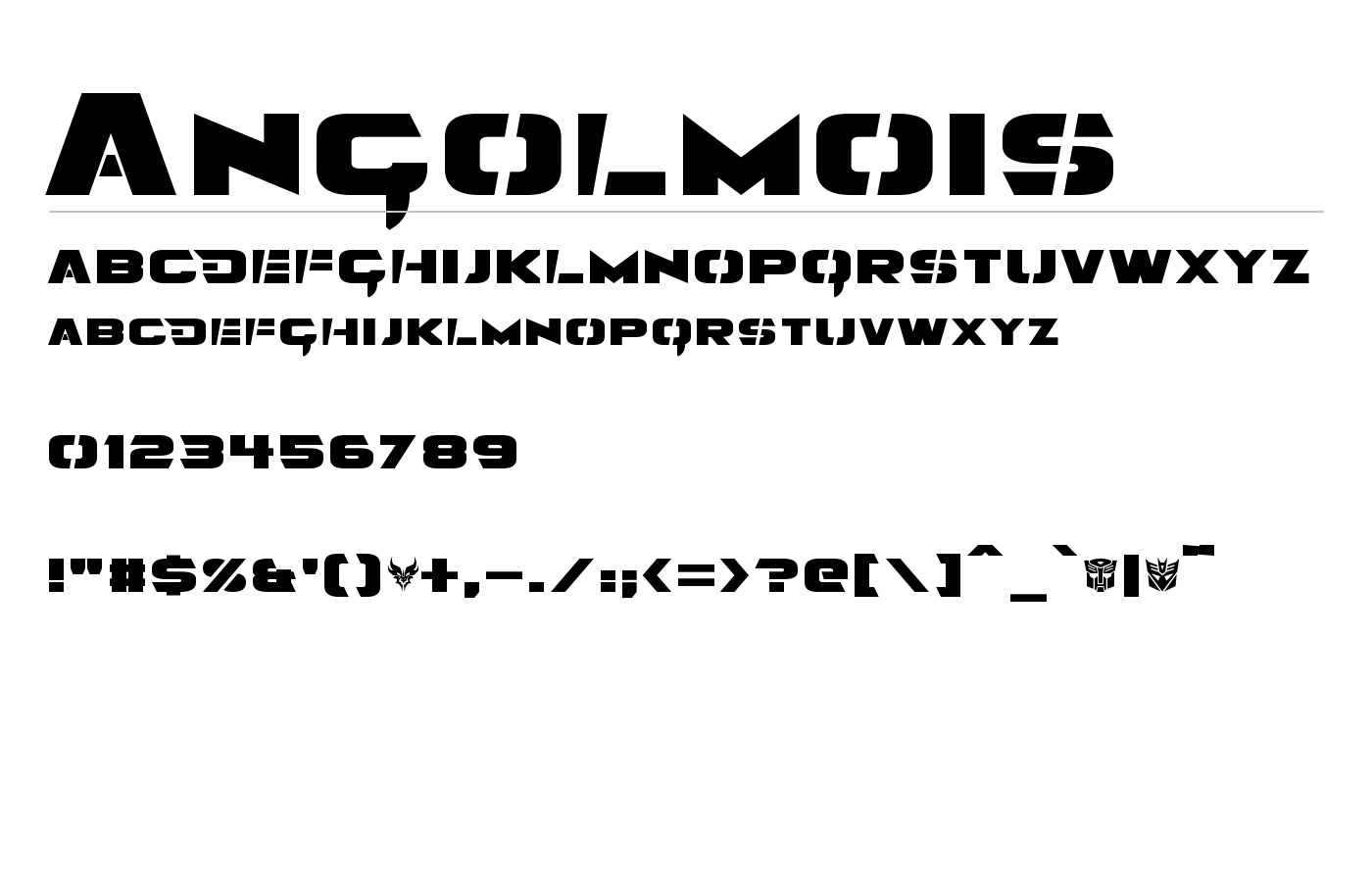
Angolmois is a bold, geometric sans serif font with a futuristic and techno vibe, characterized by its heavy weight and striking stencil-style cuts through each character. Its blocky, wide letterforms and high contrast between solid shapes and open spaces convey strength and modernity, making it ideal for impactful headlines, logos, and designs that want to evoke innovation or sci-fi themes. This font works best in large sizes where its unique cut-out details and strong presence can shine, giving a bold and edgy personality to branding and display projects.
Angolmois Font
About Angolmois Font
| Font family | Angolmois Font |
| Designer | Neale Davidson |